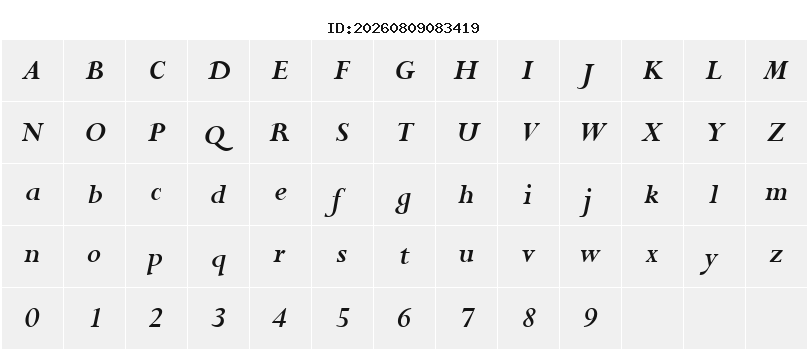
Perpetua MT Preview
• Font Name: Perpetua MT
• Designer: Eric Gill
• Manufacturer: Agfa Monotype Corporation
• Description: An elegant book or display typeface based on the inscriptional lettering of An elegant text or display typeface based on the inscriptional lettering of Eric Gill
About Perpetua MT.ttf